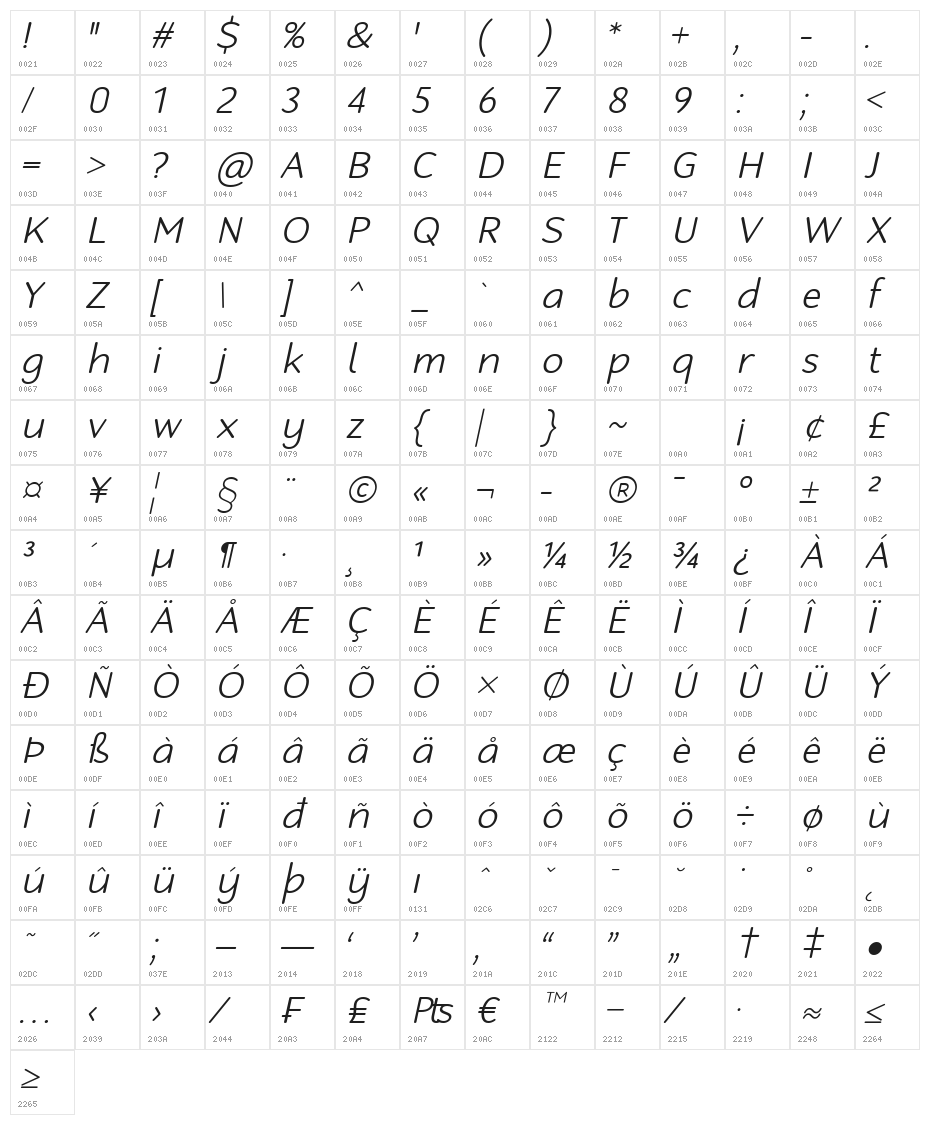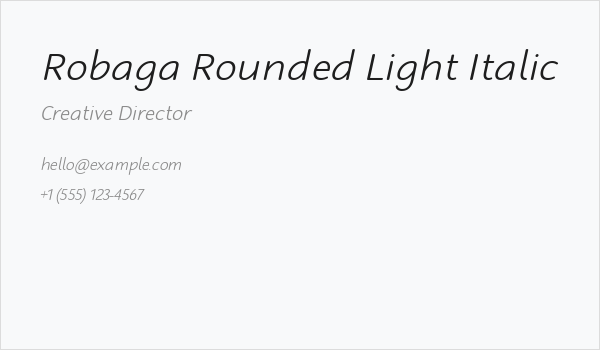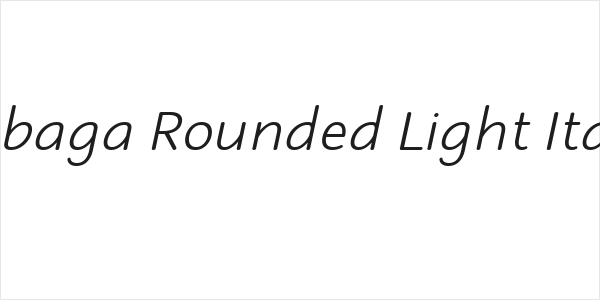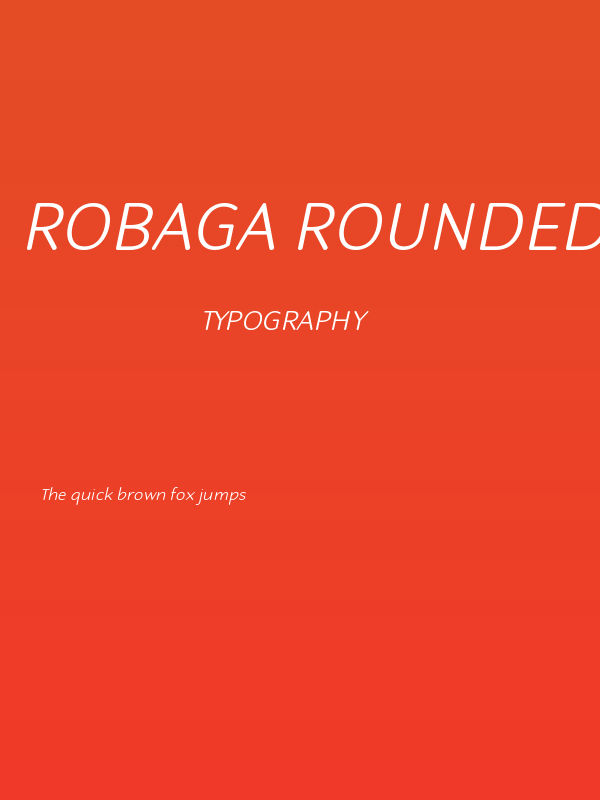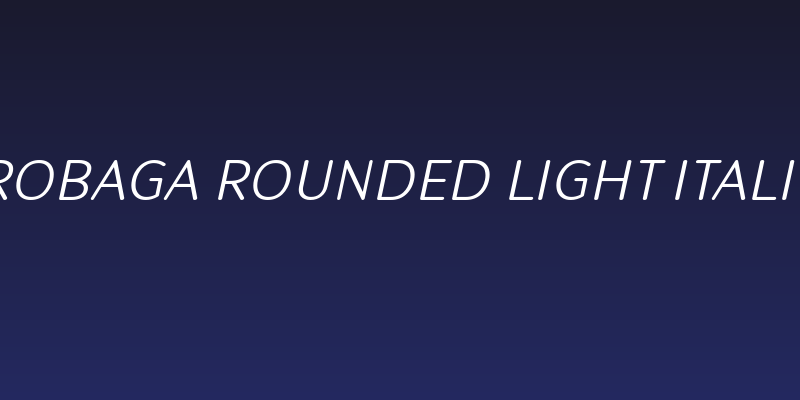
Robaga Rounded Light Italic Font
Robaga Rounded Light Italic Description
This font features a smooth, rounded design with a light and airy feel. The italic style adds a sense of motion and elegance, making it suitable for creative and modern applications. The characters are well-spaced, providing excellent readability while maintaining a stylish appearance. The rounded edges give it a friendly and approachable look, perfect for projects that require a touch of sophistication without being overly formal. The numerals and special characters are consistent with the overall design, ensuring a cohesive look across all text elements.
| Proposed Projects | Ideal for branding, advertising, and creative projects that require a modern and approachable aesthetic. |